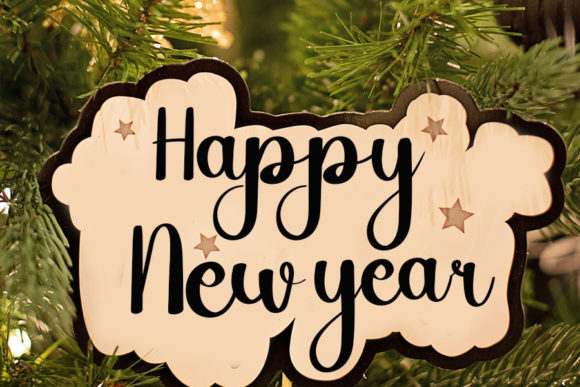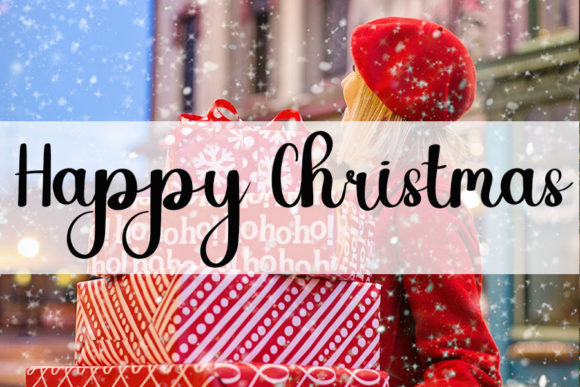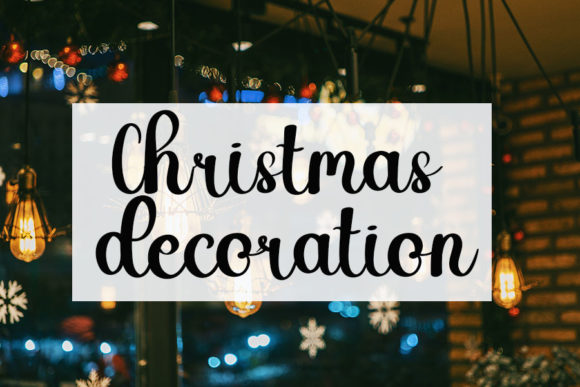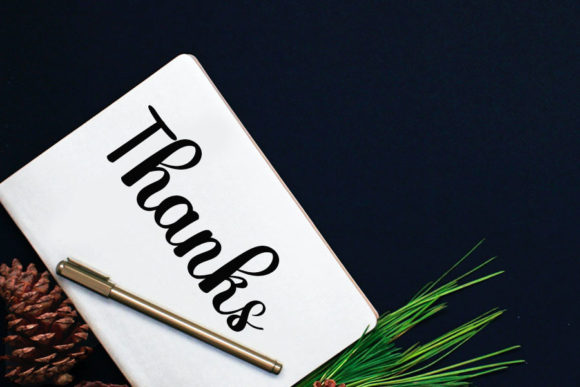
Introducing Christmas Offering Font: A Magical Handwritten Delight
Are you searching for a font that embodies the spirit of the holiday season? Look no further than the Christmas Offering Font, a charming handwritten font that is sure to captivate you with its versatility. This enchanting font is perfect for designers and crafters seeking to add a touch of magic to their projects.
The Perfect Blend of Elegance and Whimsy
Christmas Offering Font boasts a unique blend of elegance and playfulness, making it an excellent choice for a wide range of projects. Whether you’re working on a formal or informal design, this font is sure to impress. Its delicate strokes and cursive flair evoke a sense of nostalgia and wonder, perfect for creating festive and inviting designs.
One of the standout features of Christmas Offering Font is its incredible versatility. This font looks stunning whether used in large or small text, making it perfect for a variety of applications. From signage and headlines to body text and captions, Christmas Offering Font adapts seamlessly to any design need.
Formal and Informal Projects Alike
Christmas Offering Font is a font that can effortlessly transition between formal and informal projects. Use it to create sophisticated and elegant designs for luxury brands, or opt for a more playful and whimsical approach for holiday-themed crafts and party invitations. The font’s flexibility ensures that it will become a trusted companion in your design endeavors.
A Wonderful Addition to Any Font Library
With Christmas Offering Font, you can add a truly special touch to your font library. This font is sure to become a go-to choice for designers and crafters seeking to infuse their work with a dash of holiday cheer. Its unique character and versatility make it an excellent investment for anyone looking to elevate their designs.
Design Inspiration: Ways to Use Christmas Offering Font
So, how can you use Christmas Offering Font to bring some holiday magic to your designs? Here are a few ideas to get you started:
- Create festive holiday cards and invitations that are sure to delight friends and family.
- Design enchanting signage and displays for holiday markets and events.
- Add a touch of whimsy to your social media graphics and blog posts with this charming font.
- Use Christmas Offering Font to craft beautiful and eye-catching packaging for your products.
- Develop a cohesive brand identity with this font, perfect for holiday-themed businesses and services.
Tips for Getting the Most Out of Christmas Offering Font
To make the most of this amazing font, here are a few tips to keep in mind:
- Experiment with different font sizes to see how Christmas Offering Font adapts to various design needs.
- Pair this font with complementary fonts to create visually appealing and harmonious designs.
- Don’t be afraid to get creative and add your own personal touch to your designs.
- Use Christmas Offering Font to add a touch of personality to your digital and print materials.
In conclusion, Christmas Offering Font is a truly special addition to any designer’s or crafter’s toolkit. Its enchanting handwritten charm, versatility, and whimsical flair make it the perfect choice for a wide range of projects. Whether you’re working on formal or informal designs, this font is sure to impress. So why wait? Get creative with Christmas Offering Font and bring some holiday magic to your designs!